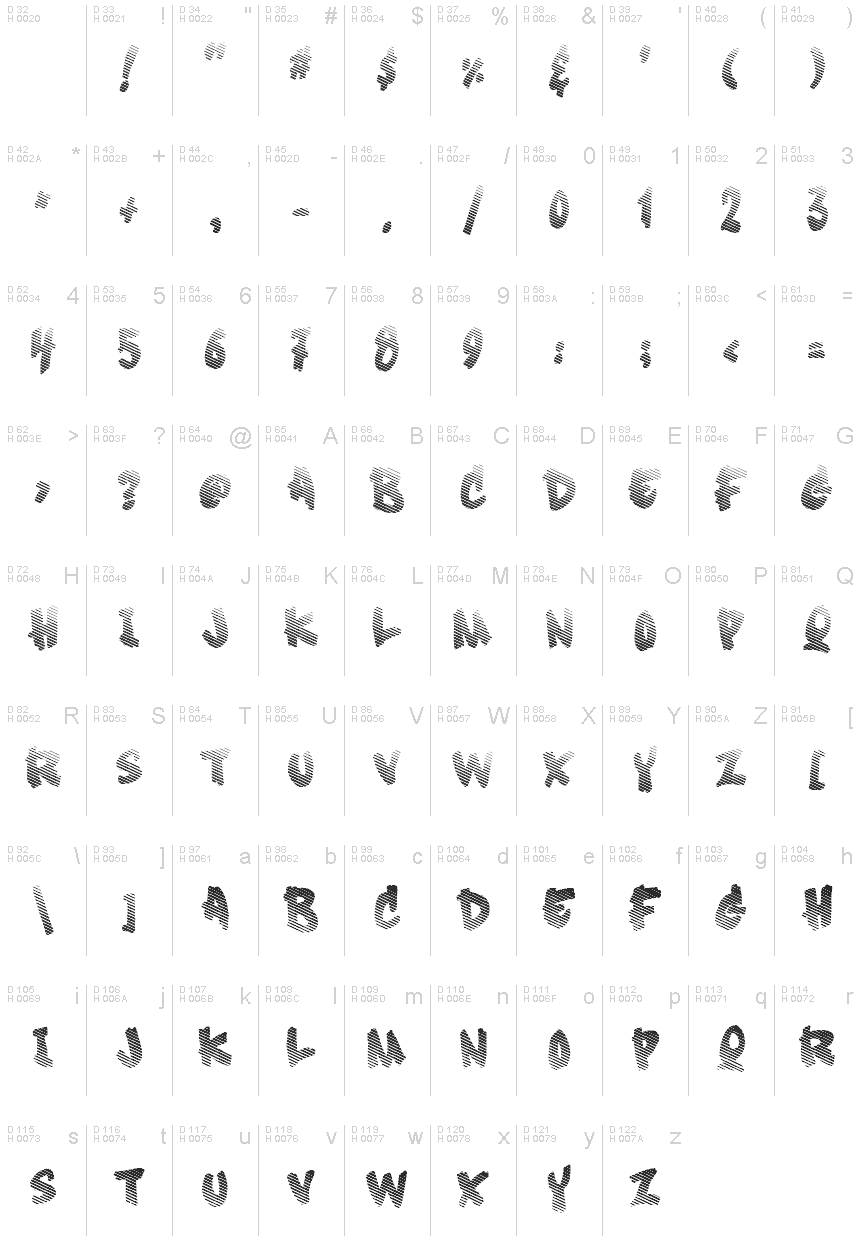
Soft Sugar fade
Soft Sugar Fade, from the whimsical Soft Sugar family, is a display font that exudes playfulness and charm. Crafted by the imaginative hand of designer Jakob Fischer, this typeface boasts an extra-bold weight that makes a delightful impact. Its cartoon style imbues every character with a sense of fun and creativity, perfect for projects that aim to captivate and enchant.
The font's aesthetic is as unique as it is appealing; its bold lines are softened by a playful fade effect that adds depth and movement to each letter. This visual treat hints at sweet memories of childhood candies and animated adventures, making it an ideal choice for designs targeting youthful audiences or those seeking a touch of nostalgia.
Whether you're designing vibrant posters, eye-catching logos, or playful merchandise branding, Soft Sugar Fade stands ready to sprinkle your project with its lighthearted magic. Let this font transform your creative ideas into engaging visuals that speak volumes in both style and substance.